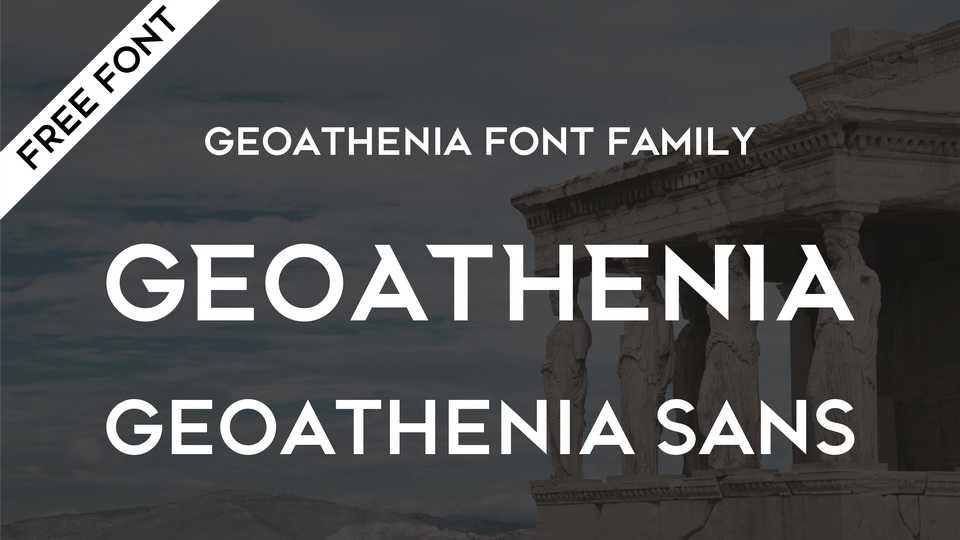
Download Geoathenia typeface, a modern geometric sans serif font family with two styles. Geoathenia is perfect for logos, branding, display and headings.
Designer: Ikramul Hadi Khan